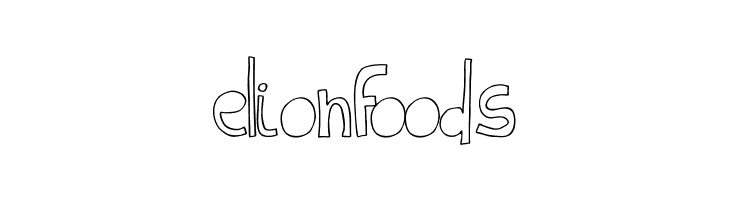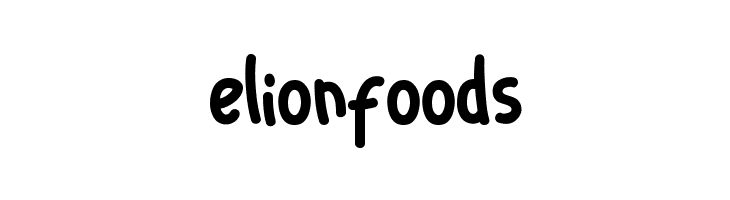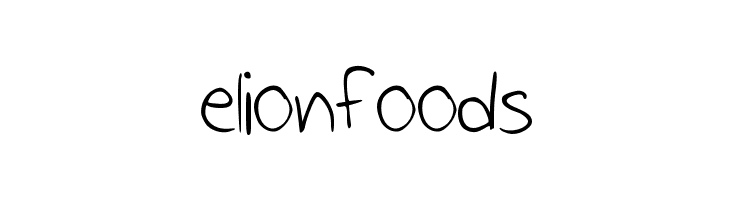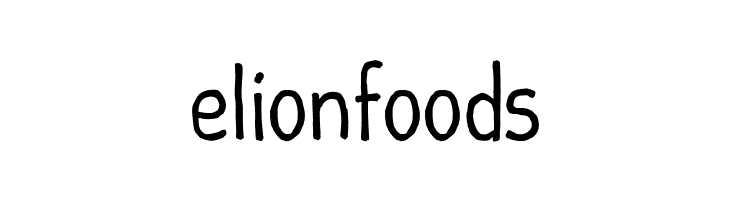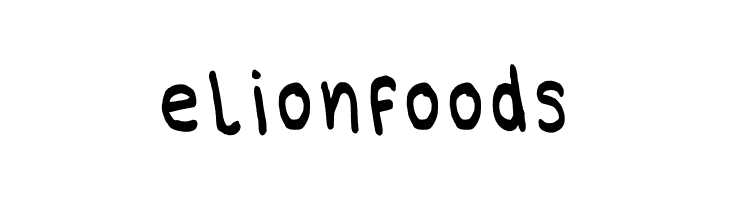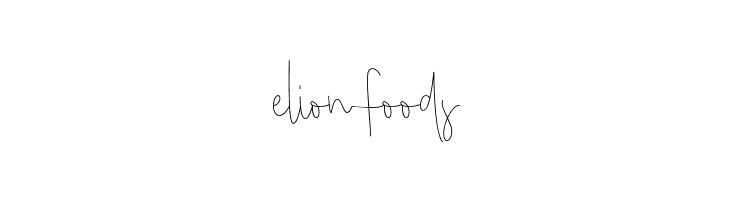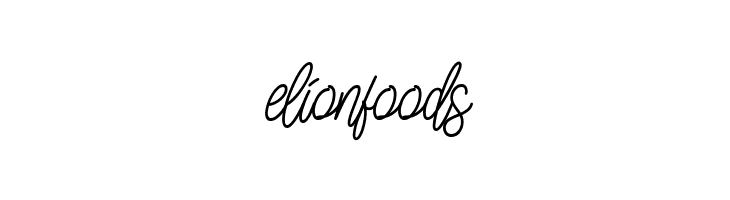
( Pisto Casero - Gilberto Moya Perona - www.pistocasero.com )
A playful, hand-drawn font with a quirky, doodle-like style.
( Pixeluigi - Luis G. Galván - www.facebook.com/memohd25 )
A playful, modern font with rounded edges and a bold, approachable style.
( Rizky Chandra Sofyan )
A playful, hand-drawn font with rounded, informal characters.
( Rocco Pisani - roccopisani.com )
A playful, handwritten font with smooth, flowing lines and a casual style.
( Sebastian Scheid - sebastian-scheid.com )
A casual, hand-drawn font with a playful and informal style.
( Skeddles - Sam Keddy - samkeddy.com/ )
A playful, informal handwritten font with a casual and approachable style.
( Splash64 - Splash 64 )
A playful, hand-drawn font with a casual and informal style.
( StudioAKTYPE - Jani Nurman - www.creativefabrica.com/designer/studioaktype/ )
A playful and elegant handwritten font with smooth, flowing lines.
( Thirtypath - www.thirtypath.com )
A playful, handwritten font with elongated, whimsical strokes.
( Twicolabs Fontdation - Fahrizal Tawakkal - fontdation.com )
A casual, elegant script font with smooth, connected letters and moderate stroke thickness.